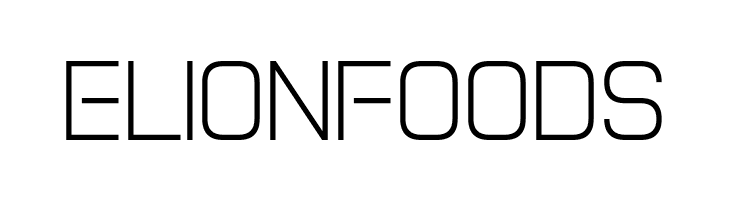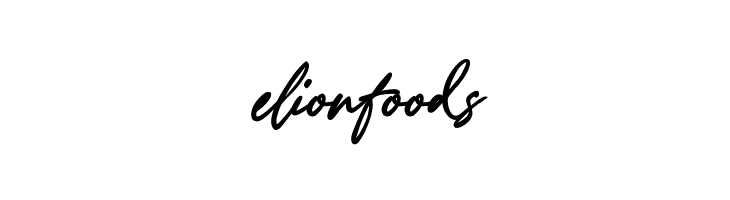
A playful, handwritten font with rounded, informal letterforms.
A playful, handwritten font with rounded edges and a casual style.
A condensed, tall, and playful font with a modern aesthetic.
A dot matrix style font with a retro-futuristic design.
A playful, whimsical script font with fluid, dynamic letterforms.
A playful font with paw print embellishments on each character.
A playful, paw-embellished font with thin, elongated characters.
A minimalist font featuring repetitive exclamation marks for modern design.
A bold, playful font with rounded, hand-drawn characters.
A modern, handwritten font with thin, elegant strokes and a slight slant.
A dynamic, slanted font with a hand-drawn, energetic style.
A bold, geometric font with strong, blocky letterforms and high contrast.
A thin, elongated font with a rough, hand-drawn texture.
A modern, thin sans-serif font with a minimalist style.
A modern, thin, and geometric font with clean lines and a sophisticated style.
A bold, modern sans-serif font with clean lines and strong visual impact.
A bold, condensed sans-serif font with a modern and clean design.
A geometric, italic font with sharp angles and a modern, technical style.
A thin, italicized geometric font with a modern and technical style.
A thin, italicized typeface with high contrast and elegant style.
A modern, geometric sans-serif font with clean lines and a minimalistic design.
A modern, bold sans-serif font with clean lines and excellent legibility.
A bold, strong font with thick strokes and a robust appearance.
A modern, light sans-serif font with tall, narrow characters and minimal contrast.
A classic serif typeface with elegant, balanced lines and moderate contrast.
A bold, modern sans-serif font with a geometric structure.
A whimsical, playful font with decorative curls and slender characters.
A bold, slanted font with a modern and dynamic style.